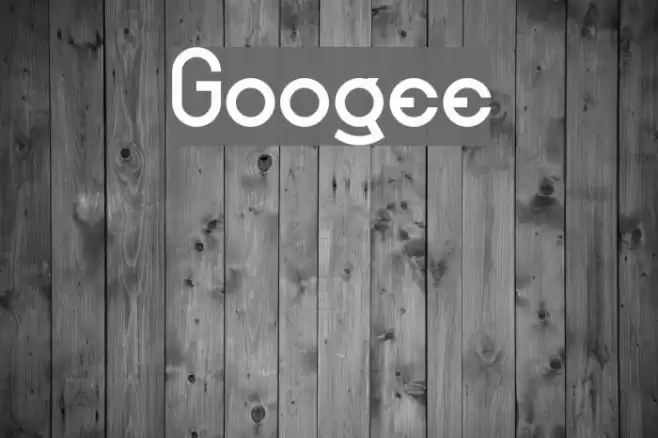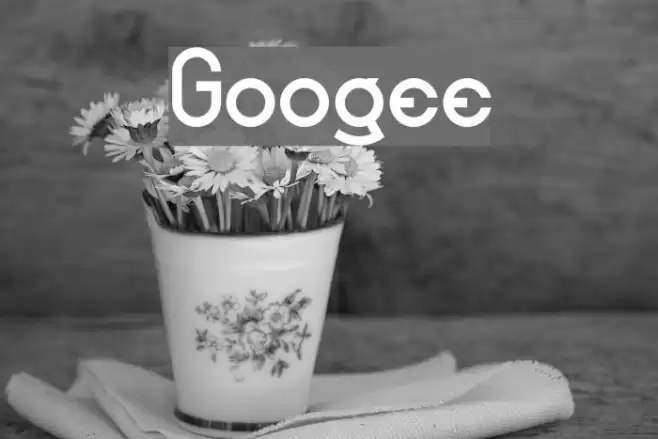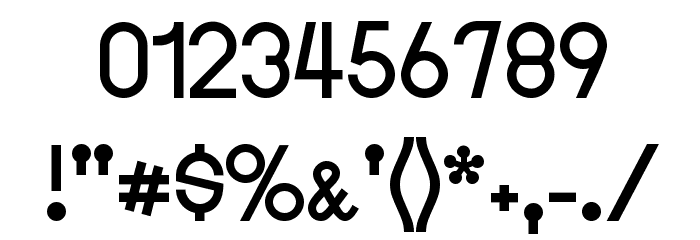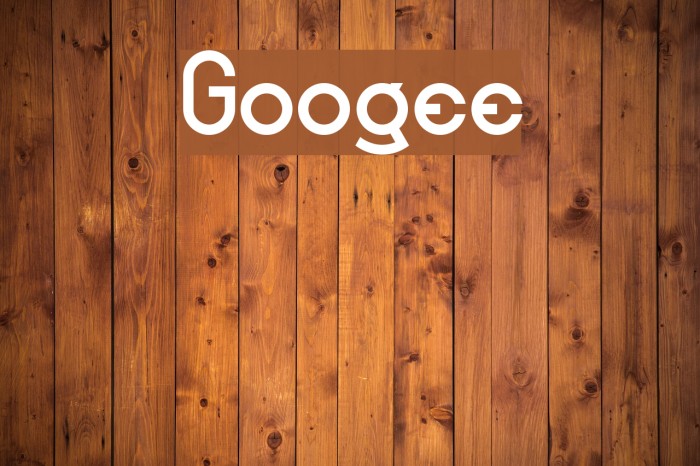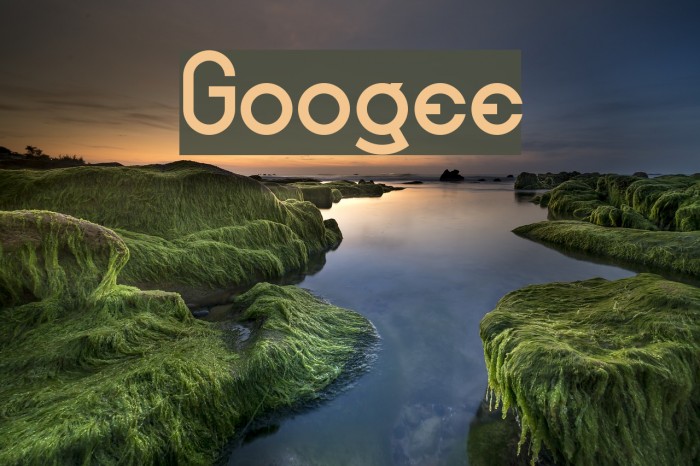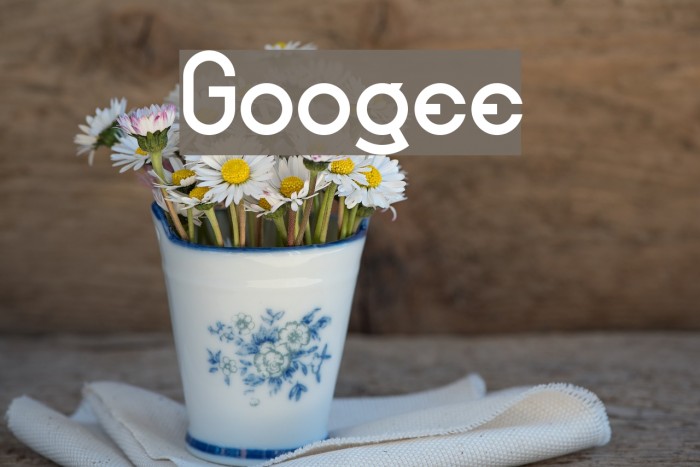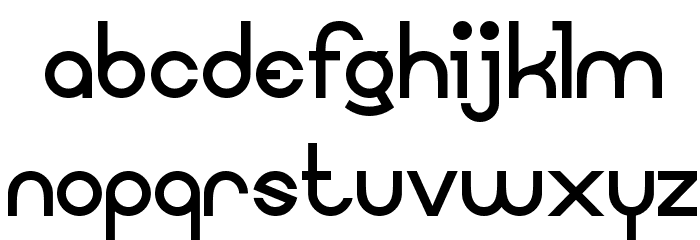
Googee Font
Googee Description
This font features a modern and geometric style with rounded edges and a clean, minimalist appearance. The uppercase letters are uniform in height, with a consistent stroke width that gives a balanced and harmonious look. The lowercase letters maintain the same geometric aesthetic, with some characters like 'a' and 'e' having a distinct closed loop design. The numerals are clear and legible, matching the overall style of the alphabet. Special characters are well-integrated, maintaining the font's cohesive design. This font's simplicity and clarity make it versatile for various design applications.
A modern, geometric font with rounded edges and a minimalist style from Uncategorized fonts.
- Proposed Projects: Ideal for branding, digital interfaces, signage, and modern editorial design.